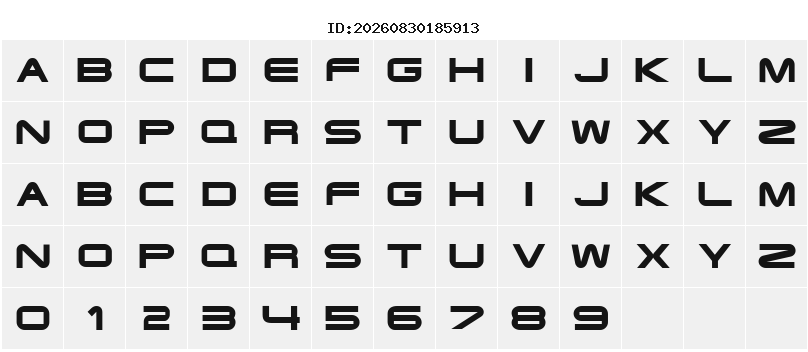
Terminator Cyr Preview
• Font Name: Terminator Cyr
• Font Style: Semi-expanded Bold
• Font ID: AllenR.Walden-eng.&AlexKazantsev-rus.: Terminator Cyr Semi-expanded Bold: 2001
• Full Font Name: Terminator Cyr Semi-expanded Bold
• Version: Version 1.0; 2001; initial release
• PostScript Name: TerminatorCyr-Semi-expandedBold
• Character Count: 277
About Terminator Cyr.ttf
Terminator Cyr.ttf is a modern, elegant sans-serif font designed for ultimate readability and visual harmony. Perfect for branding, headlines, web design, and print materials.